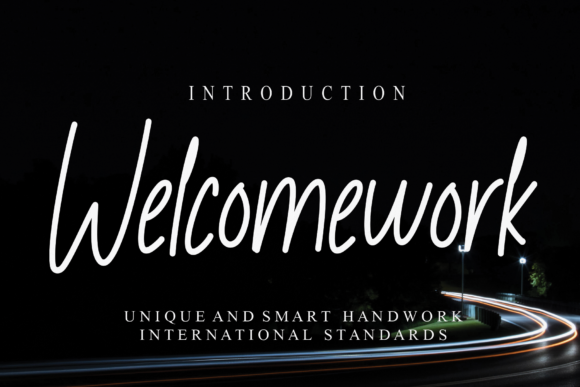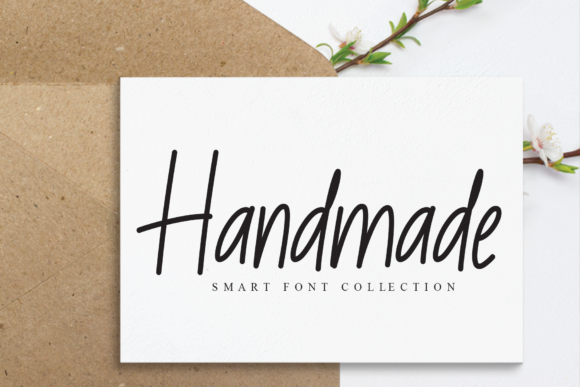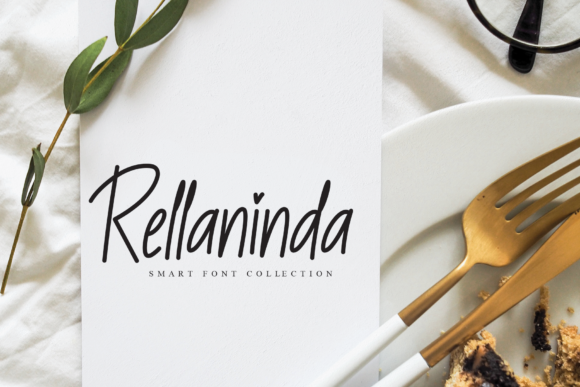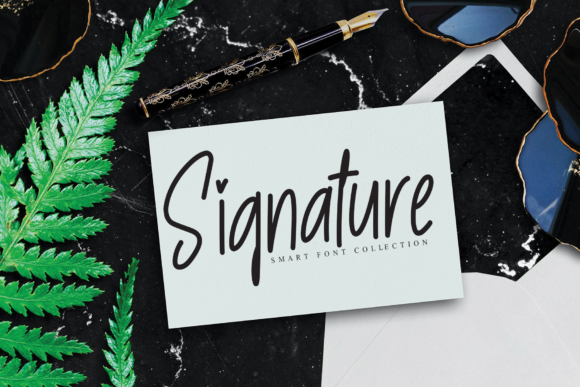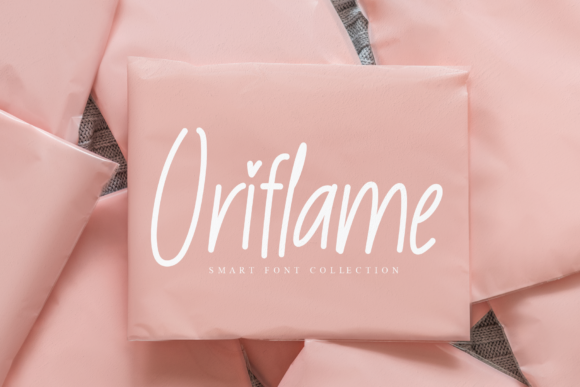
Welcomework Font
About Welcomework Font
Welcomework is a cursive and delicate script font that exudes elegance and class. This font was particularly crafted for those who need a beautiful and refreshing look to their designs.